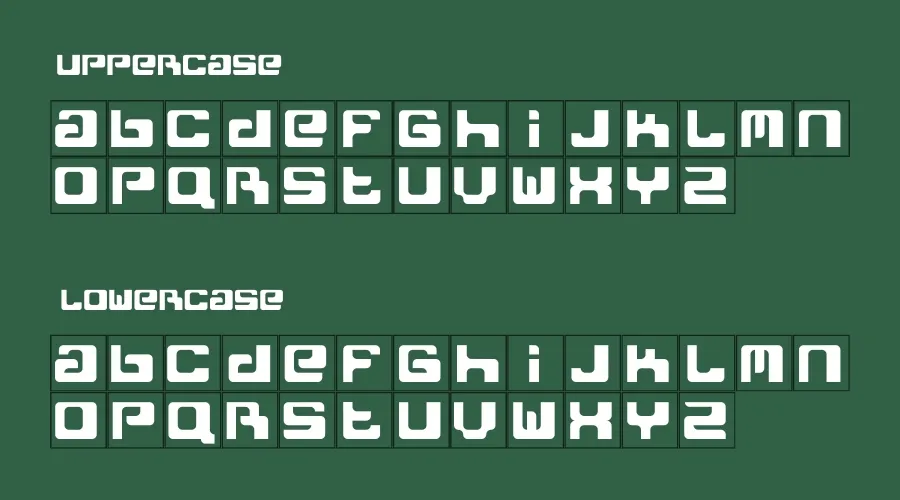
Freak Font
About Freak Font
Michaël Pinto created Freak Font it is a fancy style the font contains different characters, that users can try easily. Many official projects are best suited with this stunning font.
As well as having a readable texture and a unique appearance, this typeface is attractive in the fancy style category. And is perfect for logos, branding projects, packaging, and all types of other attractive projects that require a beautiful look.
The letters of this font demonstrate its versatility. With full concentration and experience, each letter has been created. Therefore, its letters didn't contain any errors.